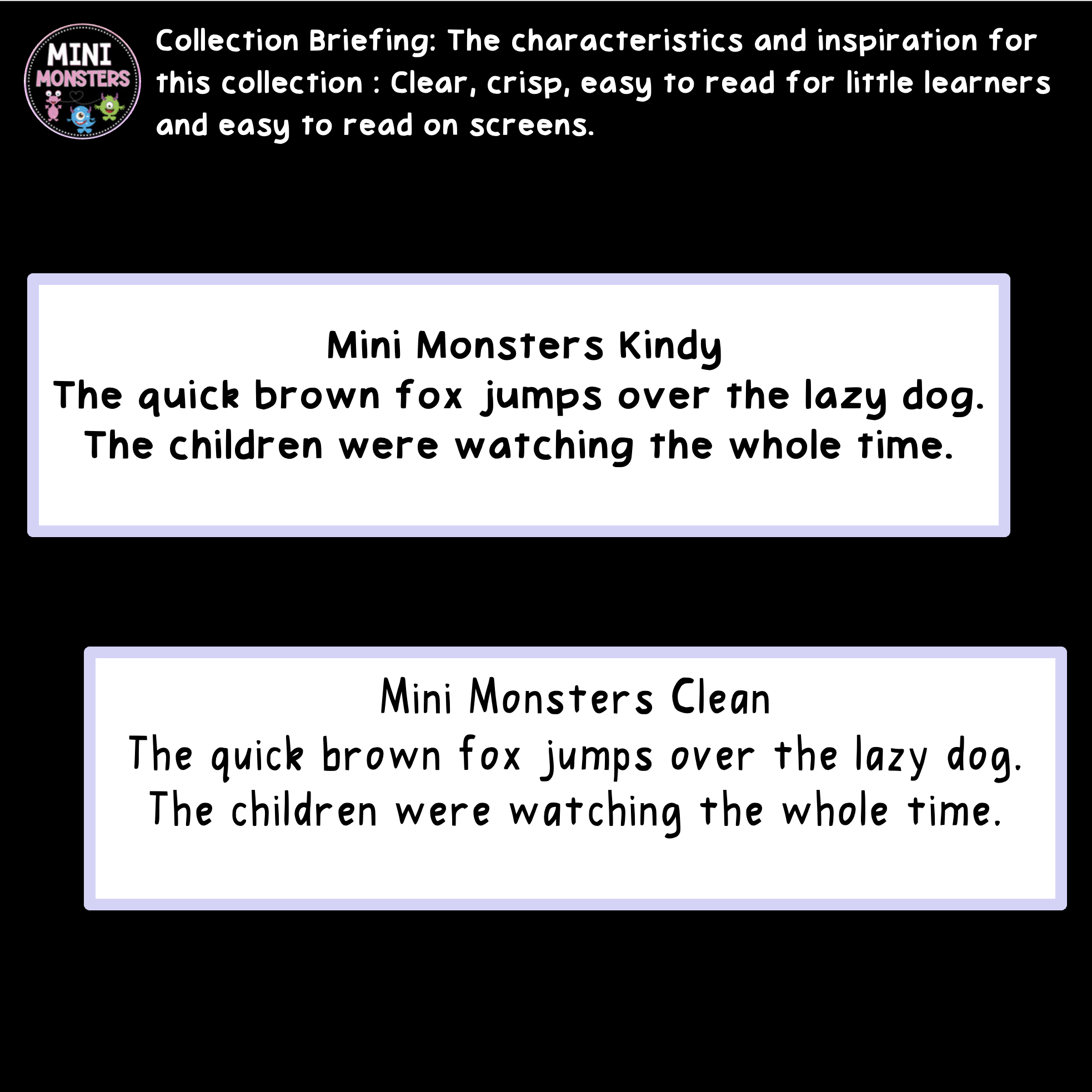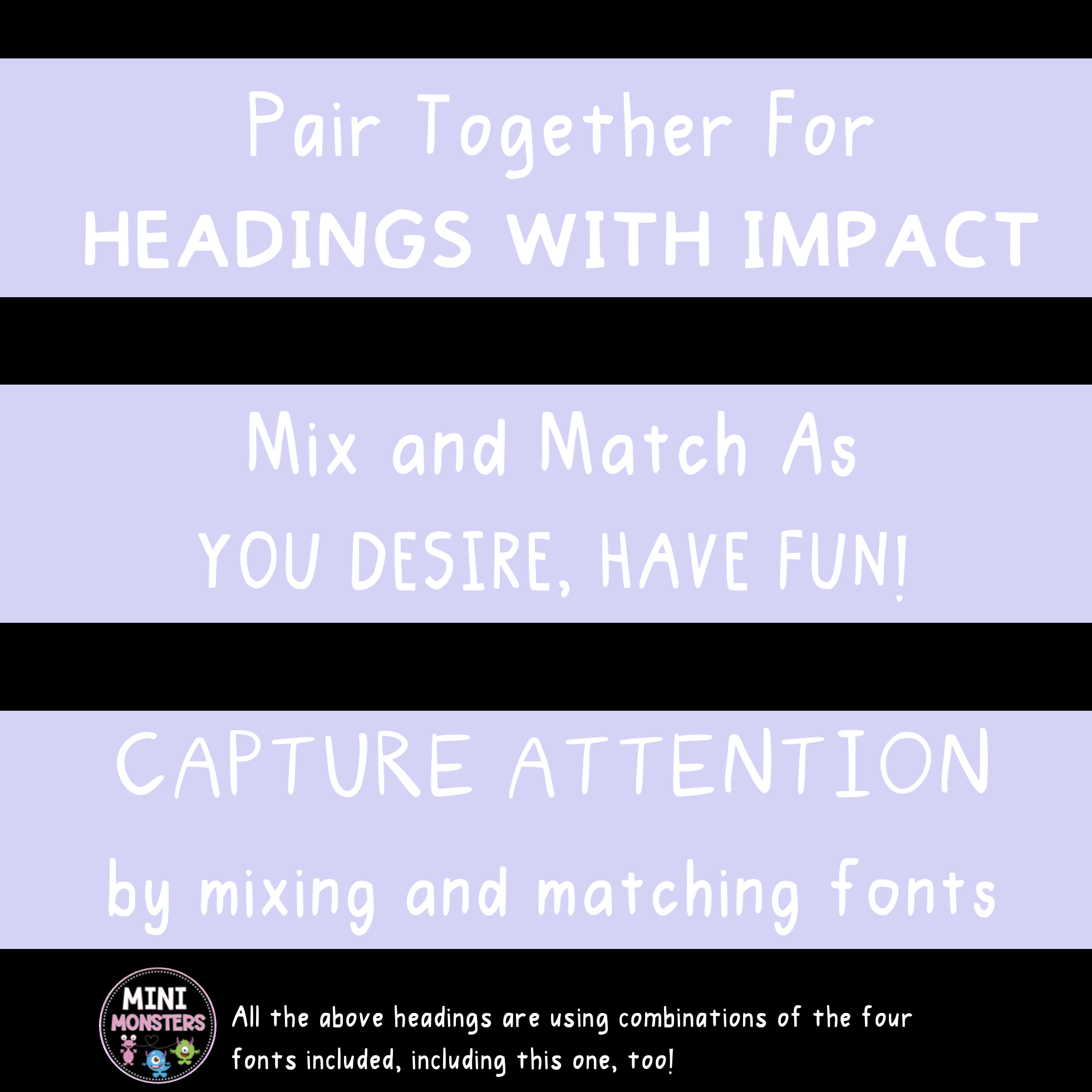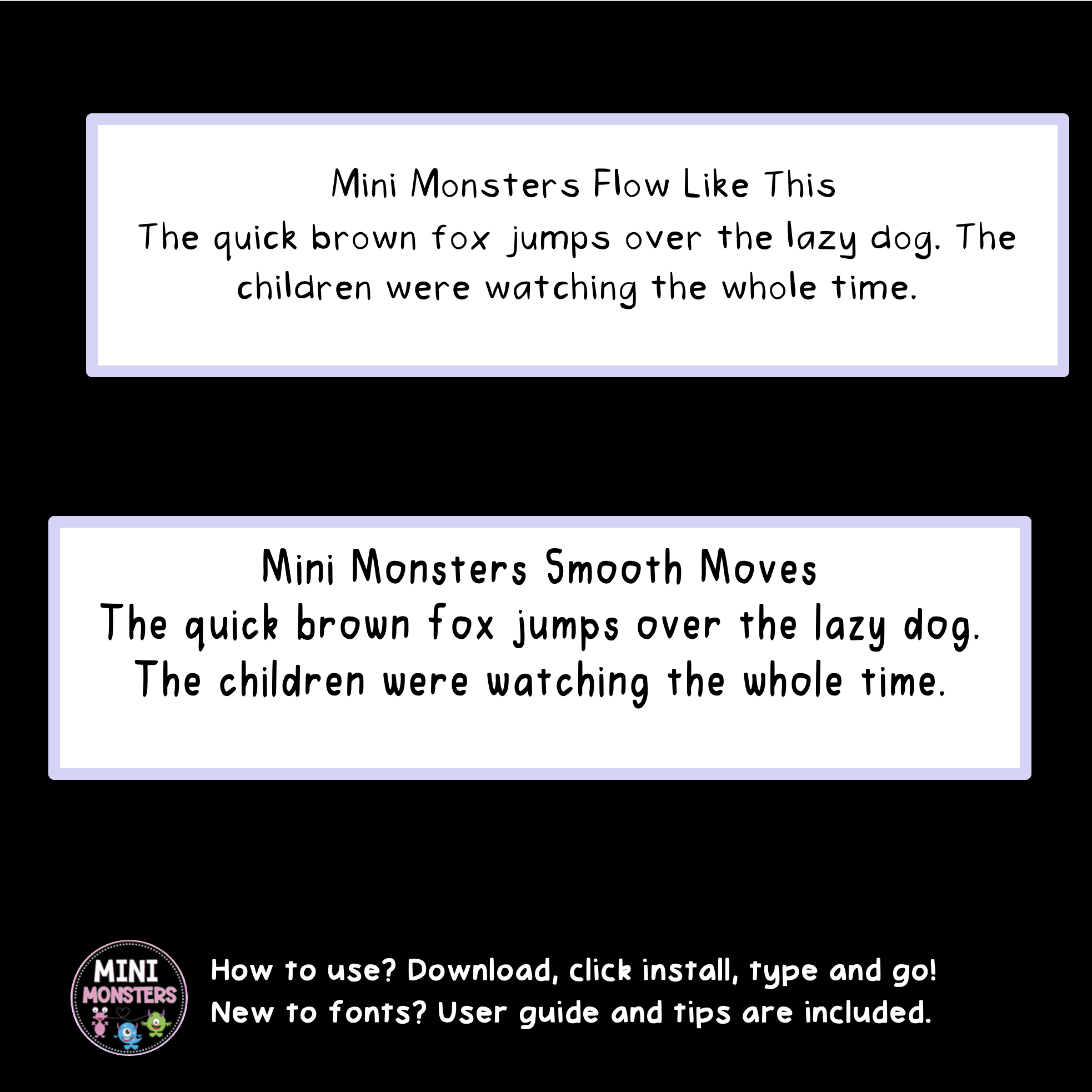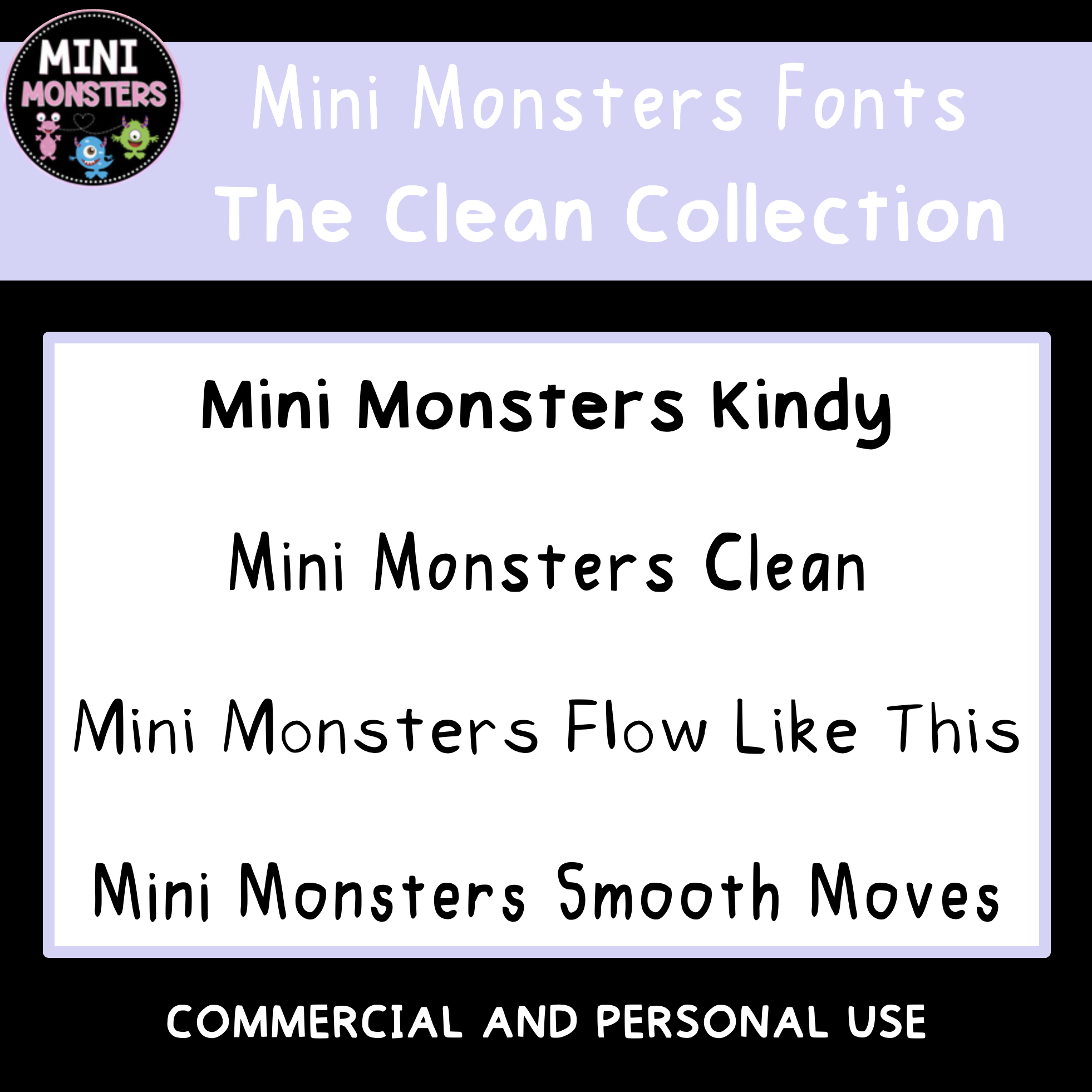
Handwritten, original fonts by a human; stand-out in an oversaturated digital world, and give your resources a unique teacher-touch. These fonts are modern, clean and easy to read for little eyes. The Clean Collection is four original everyday fonts hand-built by a Queensland teacher-author for the realities of early years and primary classrooms. Commercial and personal use permitted.
Why buy fonts?
Each and every letter, numeral and punctuation mark, is handwritten and not AI-generated, nor oversaturated. A human-made font family that keeps your resources distinct and recognisably different from the crowd, helps your resources stand out in a marketplace full of look-alikes.
Best for? Everyday worksheets and easy-reading body text.